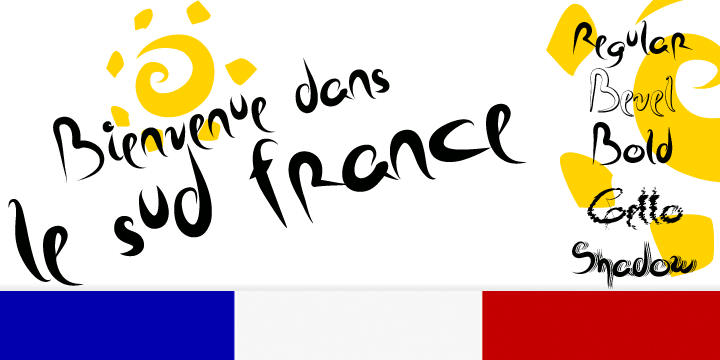
Sud France Font Free Download
The Sud France Font is ideal for French wine labels, Provence tourism materials, Mediterranean restaurant branding, French artisanal products, lavender field promotions, southern French cuisine marketing, vineyard communications, and authentic regional design applications that require French charm with Mediterranean sophistication and provincial elegance.
What makes the Sud France Font Free Download so exciting is its exceptional ability to capture the sun-soaked elegance and provincial charm of southern France through typography that embodies both Mediterranean warmth and refined French cultural heritage. This typeface features graceful letterforms with regional characteristics that suggest vineyard terraces, lavender fields, and the timeless beauty of French countryside living. Its provincial aesthetic speaks to audiences who appreciate French lifestyle and Mediterranean culture, making it perfect for French businesses, Mediterranean brands, and cultural organizations requiring typography that projects authentic French regional character and sophisticated provincial charm.
The Sud France Font family encompasses elegant weight variations from Light to Bold, each maintaining the font's signature French character and Mediterranean sophistication. The collection includes Regular, Medium, and Bold styles with enhanced regional characteristics that reinforce the font's provincial appeal and French cultural authority. This sophisticated font system ensures French heritage brands and Mediterranean businesses have access to typography that conveys authentic regional charm while creating immediate connection to concepts of French terroir, Mediterranean lifestyle, and provincial sophistication.
Perfect for French wineries, Mediterranean restaurants, Provence tourism organizations, and creative professionals working on projects that celebrate French regional culture and Mediterranean heritage. The font's provincial appeal makes it invaluable for French cultural marketers, Mediterranean lifestyle designers, and tourism professionals developing communications that must capture authentic southern French charm. Download Sud France Font Free Download today and savor French elegance with this exceptional typeface that flows like Mediterranean sunshine while delivering provincial sophistication and authentic French regional character for cultural heritage communications.